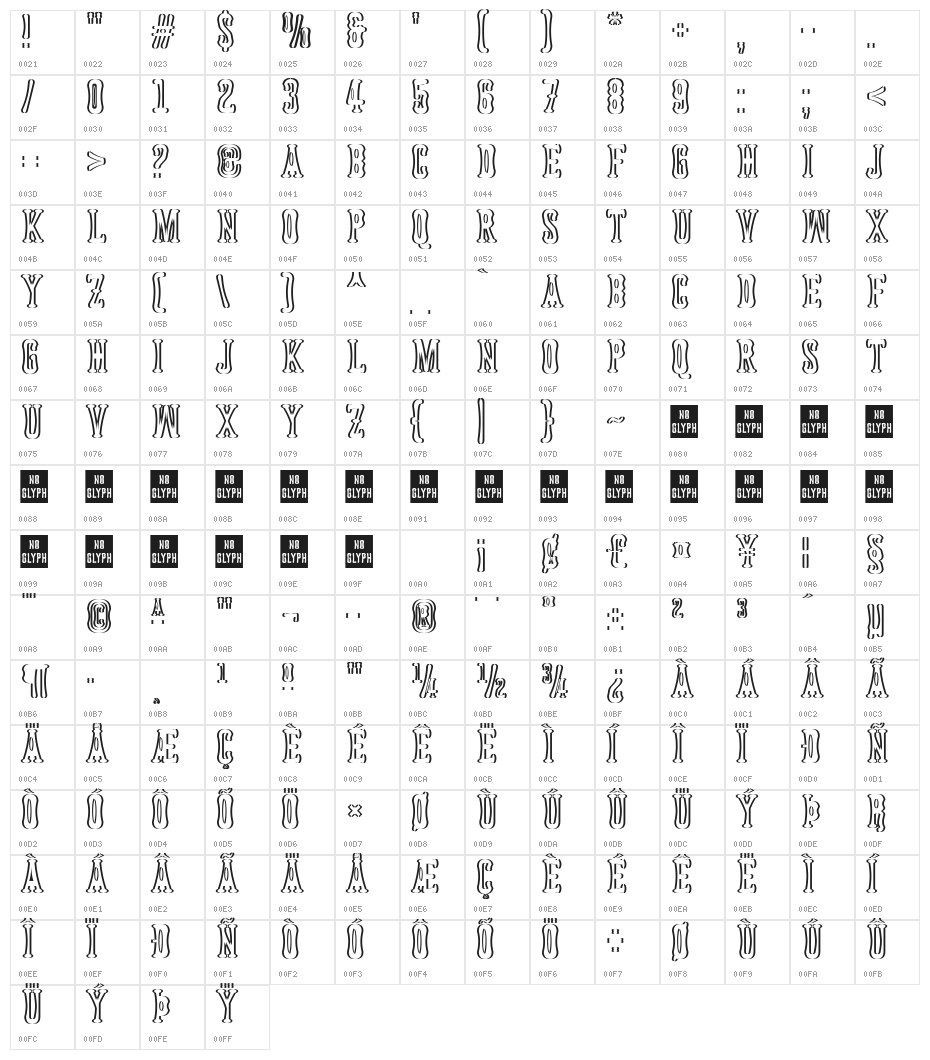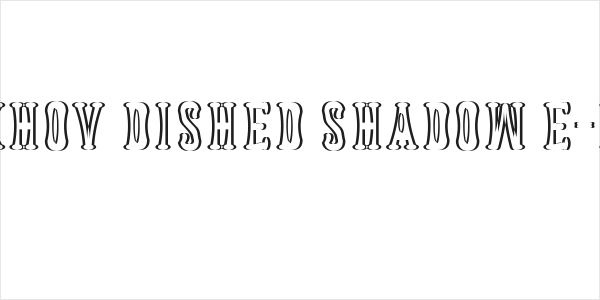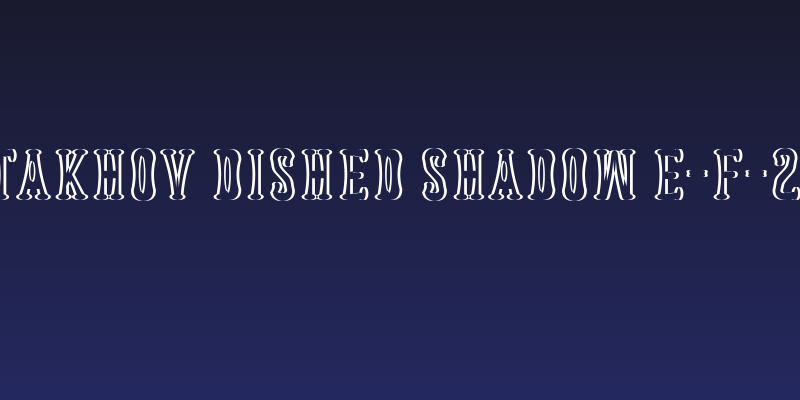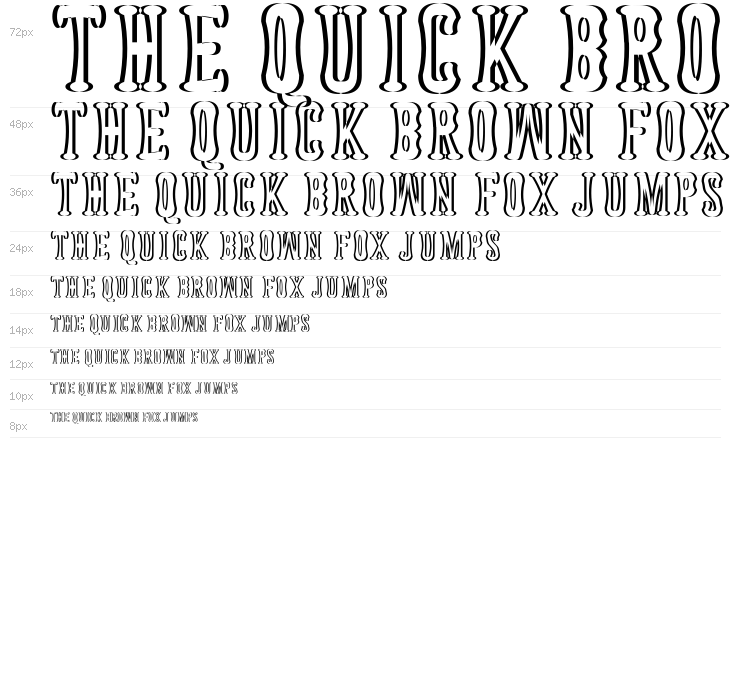
Astakhov Dished Shadow E-F-2 Se Font
Astakhov Dished Shadow E-F-2 Se Description
This font features a unique shadowed design with a bold and decorative style. Each character is crafted with a distinct shadow effect that gives a three-dimensional appearance, making it stand out prominently. The uppercase and lowercase letters maintain a consistent style, with the shadow adding depth and a playful touch. The numerals and special characters follow the same design principles, ensuring uniformity across all glyphs. This font is ideal for projects that require a bold statement or a vintage feel, as its decorative elements and shadowing evoke a sense of nostalgia and creativity.
| Proposed Projects | Ideal for posters, logos, vintage-themed designs, and eye-catching headlines. |